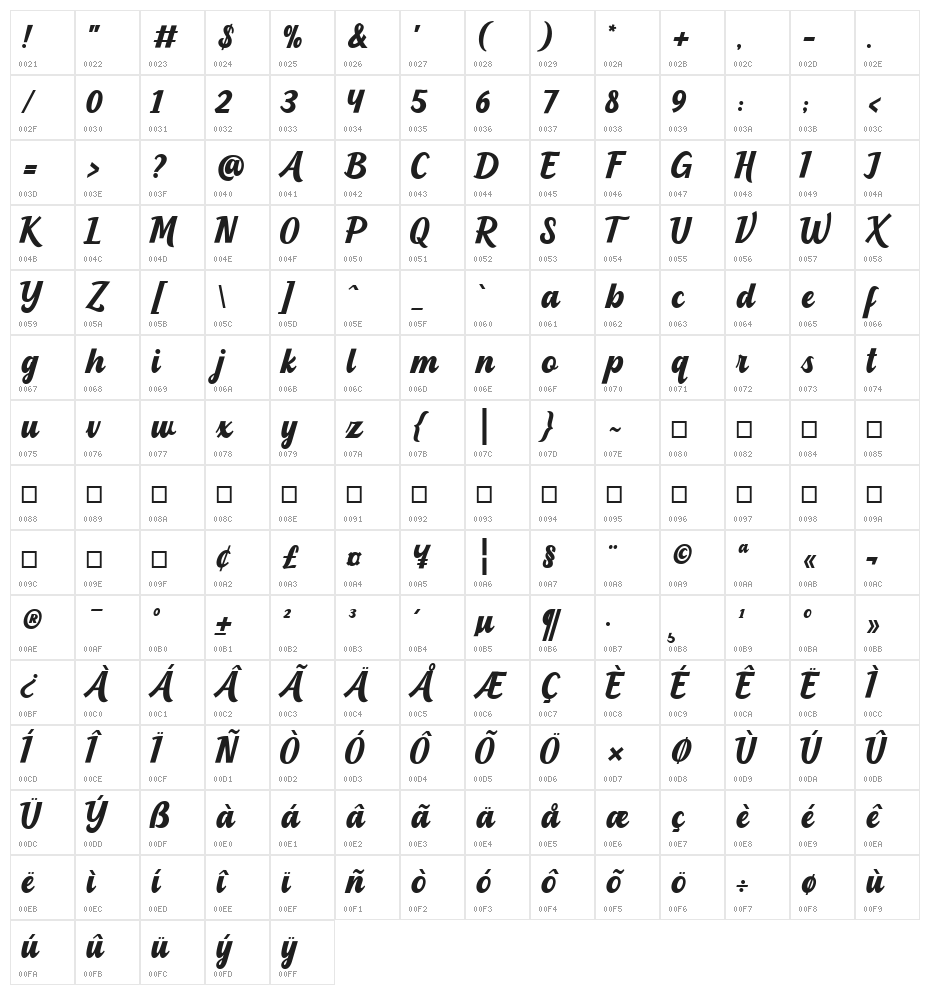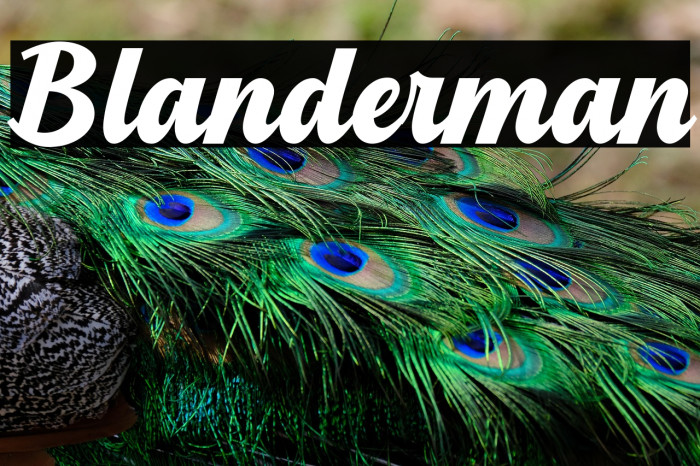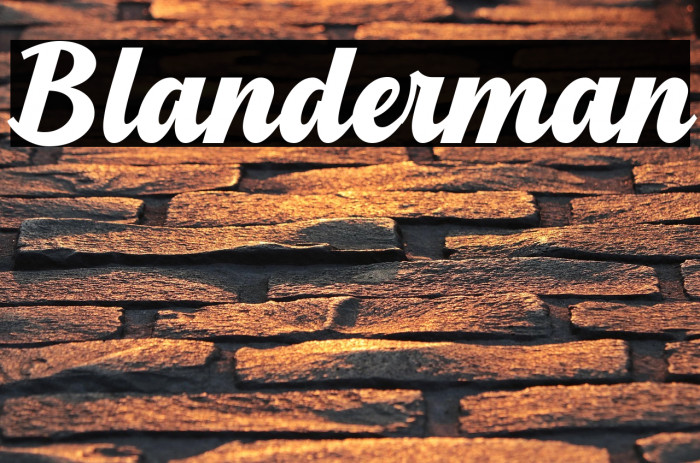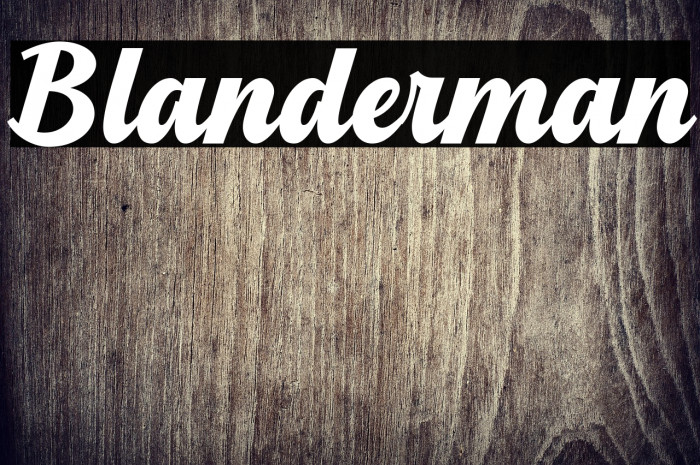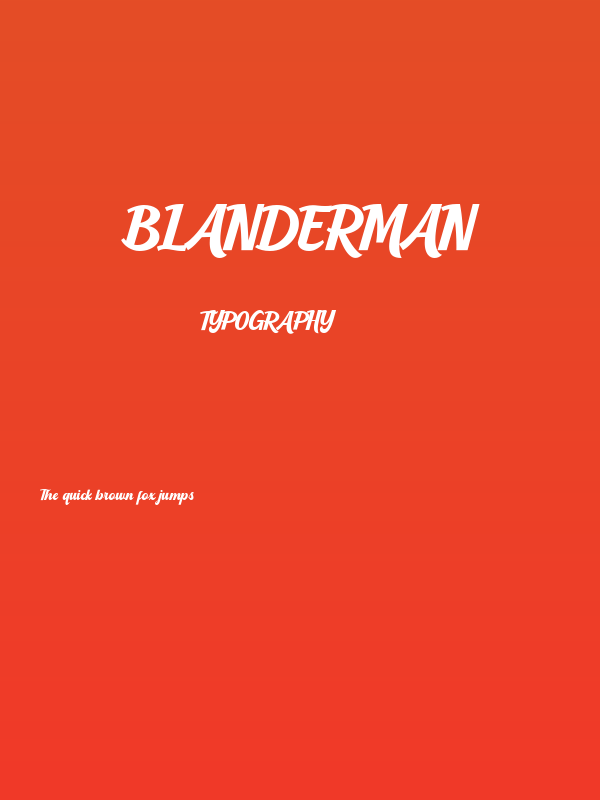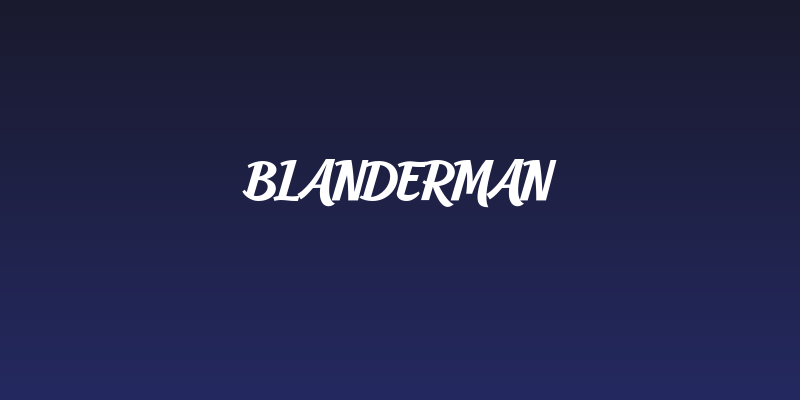
Blanderman Font
Blanderman Description
This font features a bold and dynamic script style with a strong slant, giving it a sense of motion and energy. The characters are connected, creating a fluid and cohesive appearance. The uppercase letters are tall and commanding, while the lowercase letters maintain a consistent flow. The numerals and special characters are designed to match the overall aesthetic, ensuring uniformity across all elements. The strokes are thick, providing a high contrast that enhances readability and impact. This font is ideal for making a statement with its expressive and artistic flair.
| Proposed Projects | Ideal for branding, logos, headlines, and posters that require a dynamic and artistic touch. |